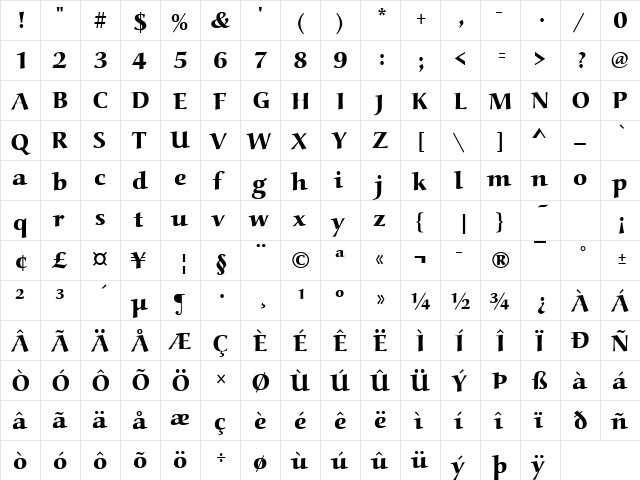
Alois Heavy Regular
Design Context for Alois Heavy Typeface
Alois Heavy is a composed and adaptable typeface that performs quietly and consistently across a wide range of design contexts.